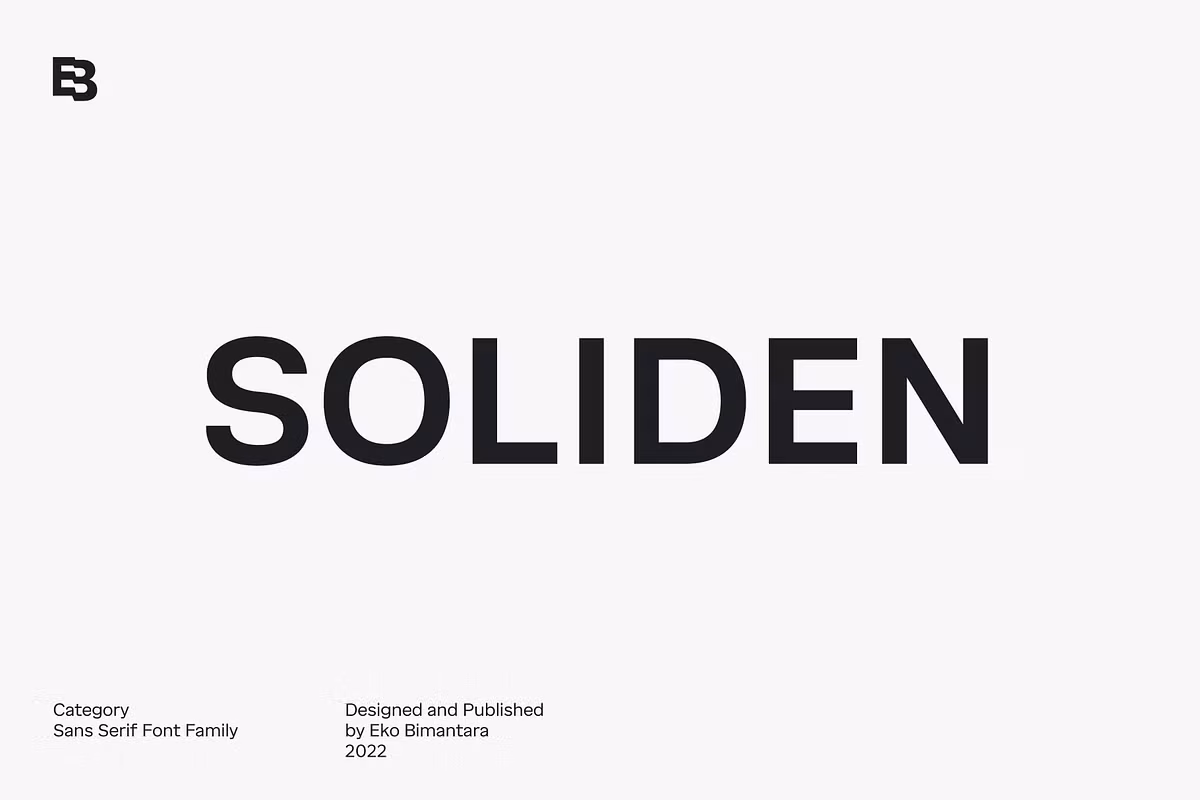
Soliden; 48 Fonts Sans Serif Family Free Download
Soliden; 48 Fonts Sans Serif Family Free Download is a comprehensive and versatile font family that includes 48 unique sans-serif fonts. With a wide range of weights and styles, Soliden is perfect for everything from logos and branding to websites, print designs, and more. Its clean, modern design ensures readability and flexibility, making it an excellent choice for both digital and print projects.